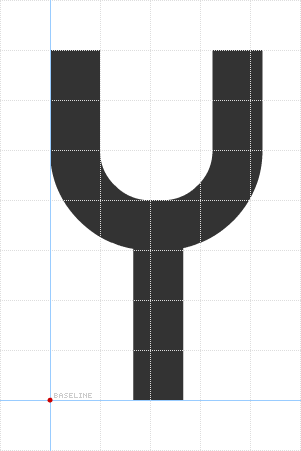
Zaratustra Gap Revised
Cohnisgone
Clone of Zaratustra Gap. The stencil font has been made 1 brick higher to allow for the better-rounded S and B. However I couldn't make a good Y.
You can make a vertical for the Y using composites and stacking.
Yes, but what I was meaning to do was have gaps on either side of the stem (I think that's the term) in the same way as T. Your design wouldn't work as a stencil.